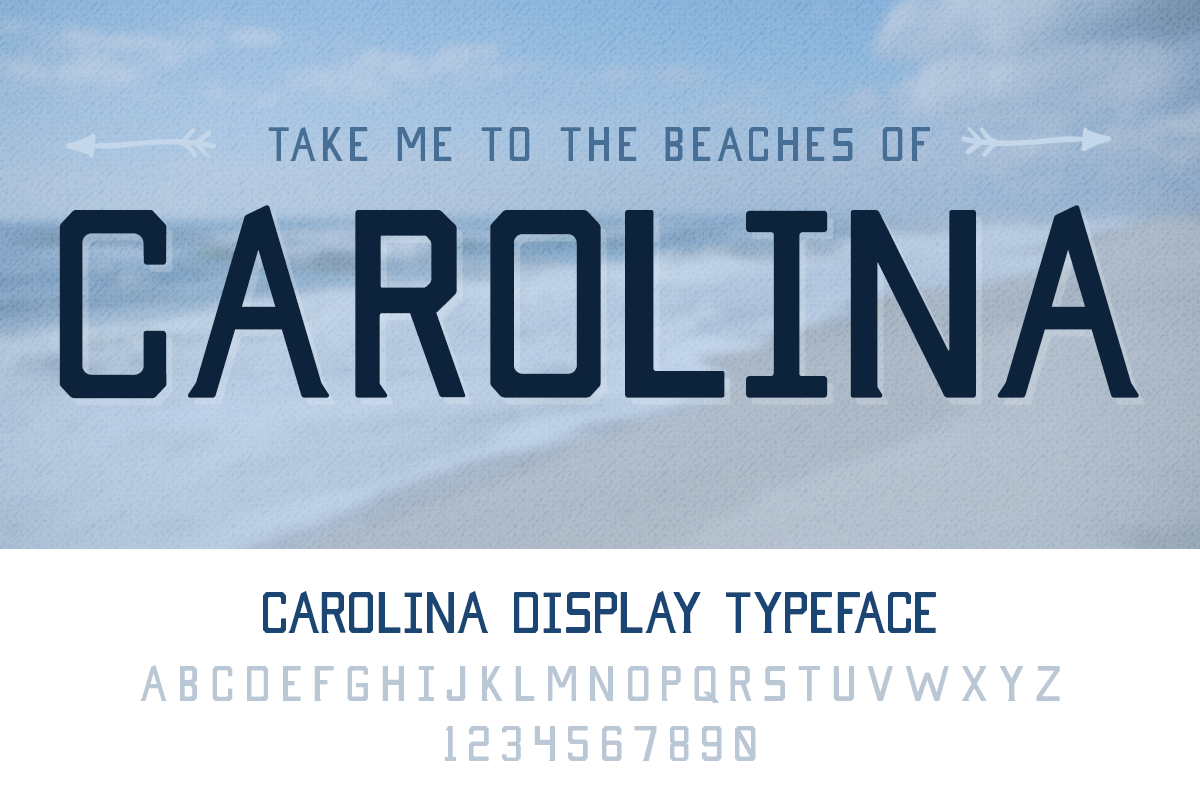
Carolina Display Typeface
Carolina takes inspiration from North Carolina's rich colonial history by combining old, industrial and modern styles to create a typeface with unique details. In addition to the standard characters, additional punctuation glyphs are included.